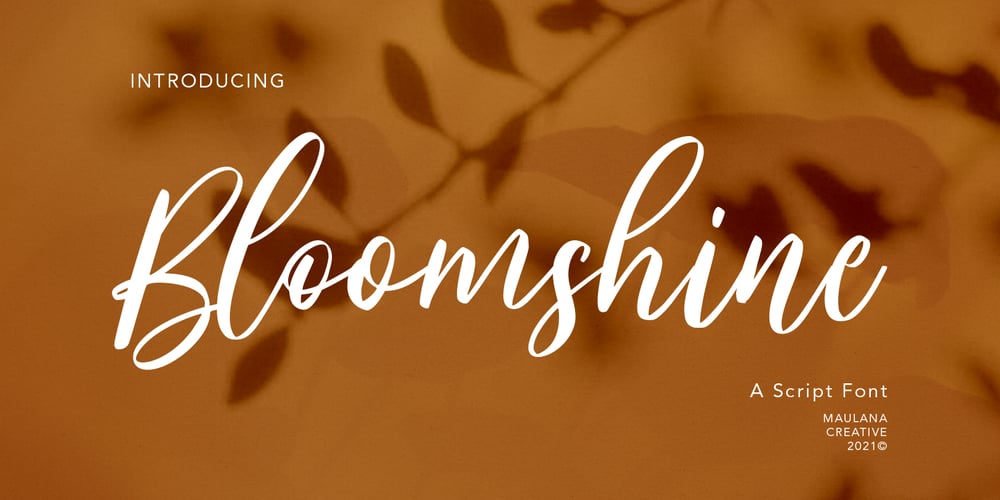
Bloomshine Font Family was designed by Gilang Maulana and published by Maulana Creative. Bloomshine contains 1 styles and family package options. Bloomshine is casual script font, with feminine touch contrast stroke, slanted and fun character. It has Opentype features ligatures of character, To give you an extra creative work. Bloomshine font support multilingual more than 100+ language. This font is good for logo design, Social media, Movie Titles, Books Titles, a short text even a long text letter and good for your secondary text font with sans or serif. Make a stunning work with Bloomshine font. Cheers, MaulanaCreative